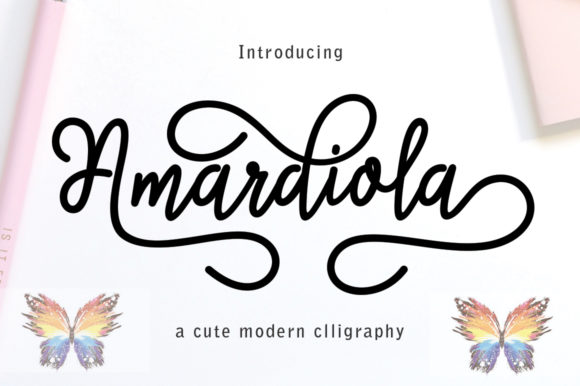
The Amardiola Font: A Charming and Elegant Addition to Your Design Arsenal
A Personal Review of Amardiola Font
What I Love About Amardiola Font
- ✨ Charming and Elegant: Amardiola font feels equally charming and elegant, making it perfect for designs that require a touch of sophistication.
- ✅ Versatile: It looks stunning on wedding invitations, thank you cards, quotes, greeting cards, logos, business cards, and every other design that needs a handwritten touch.
- 💻 PUA Encoded: This font is PUA encoded, which means you can access all of the glyphs and swashes with ease!
- 🎨 Aesthetic Features: It features a varying baseline, smooth lines, gorgeous glyphs, and stunning alternates.
The Backstory of Amardiola Font
| Font Name | Amardiola Font |